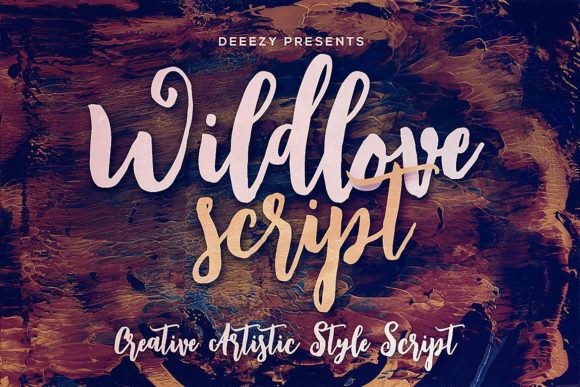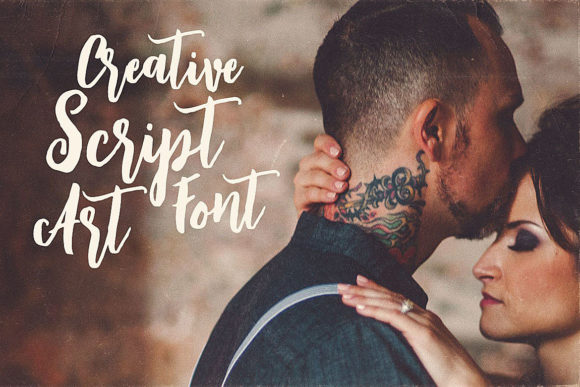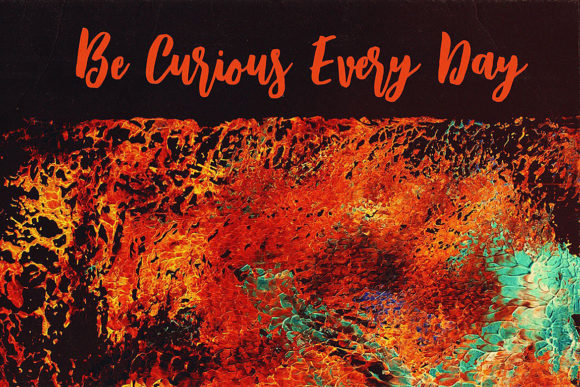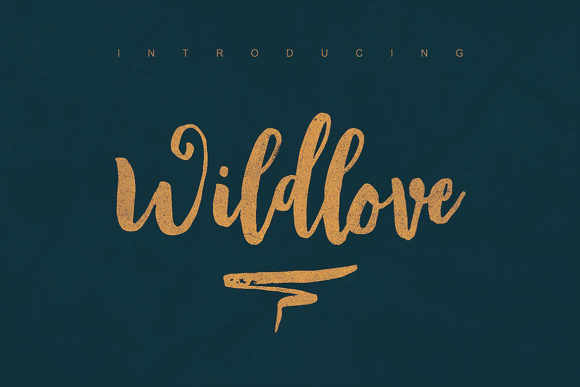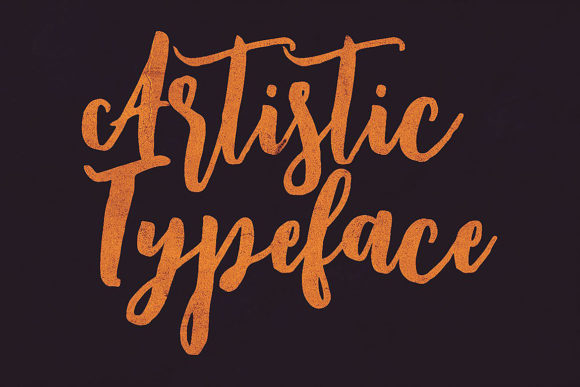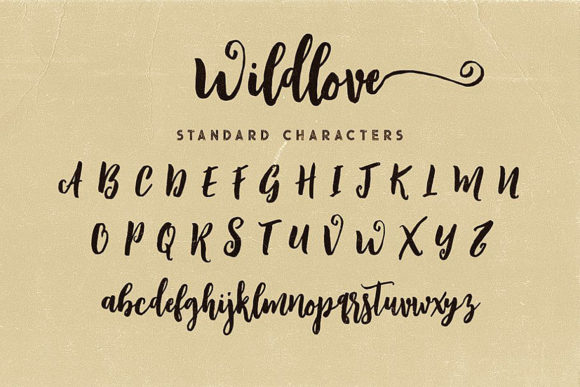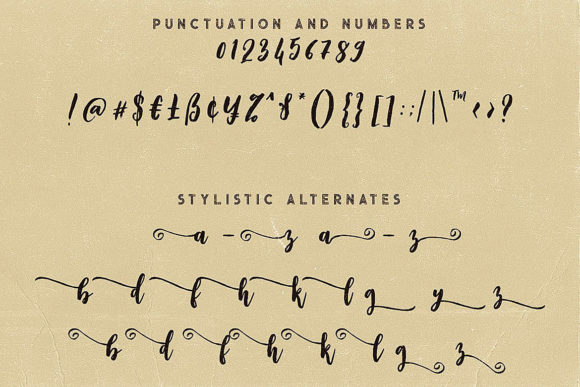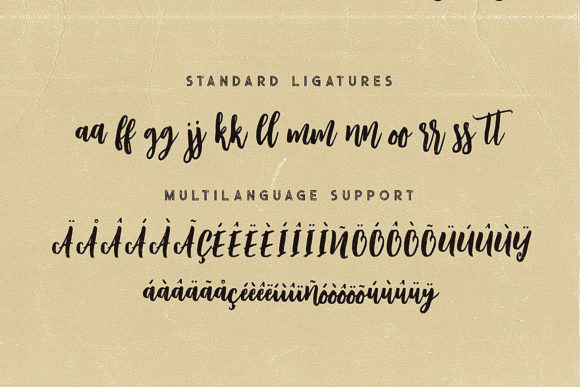
Wildlove Font
About Wildlove Font
Wildlove is an undeniably romantic and free-spirited font. Add a touch of authenticity to your next project with this stunning font.